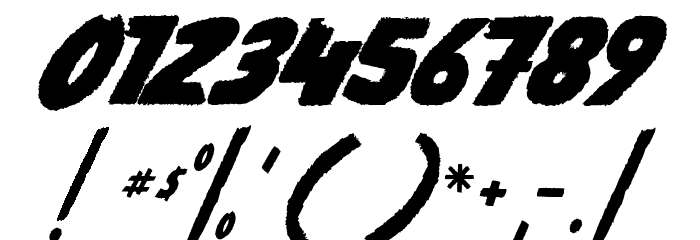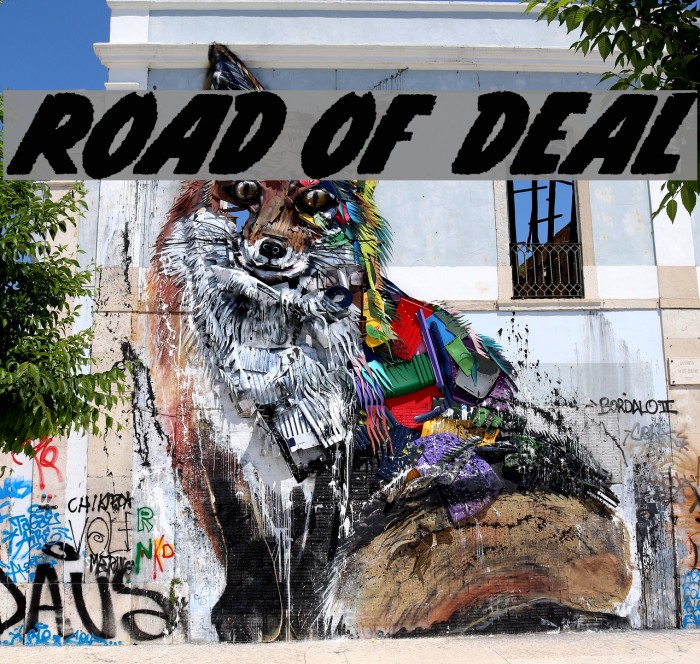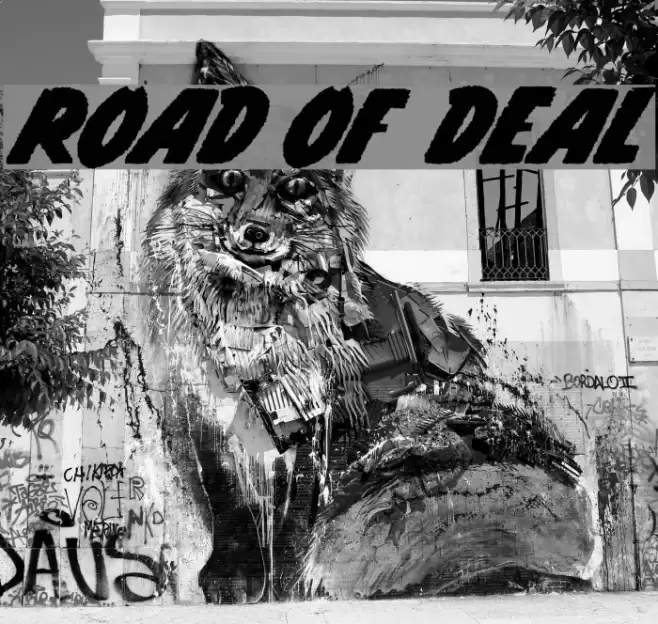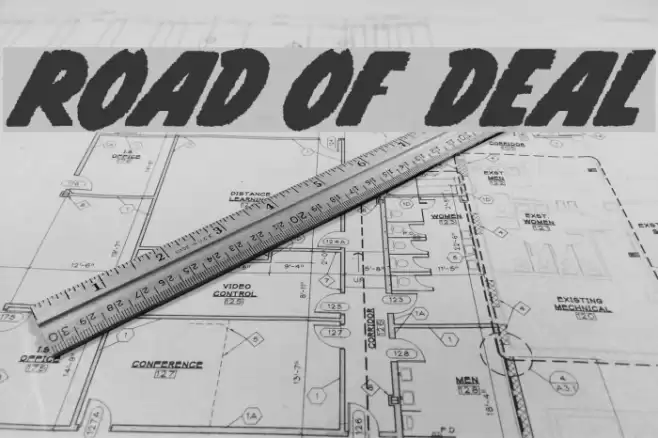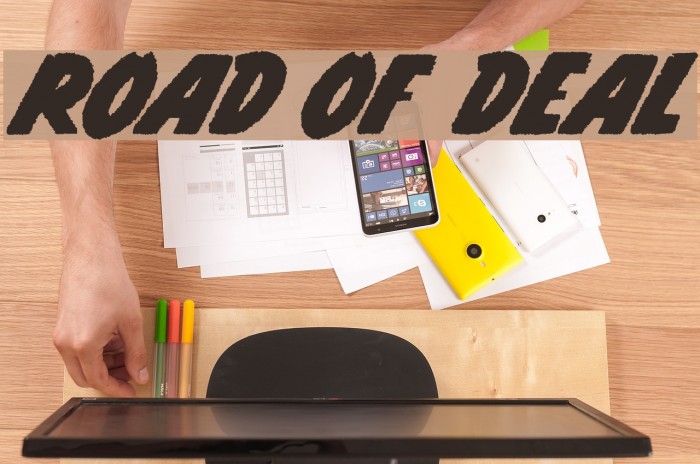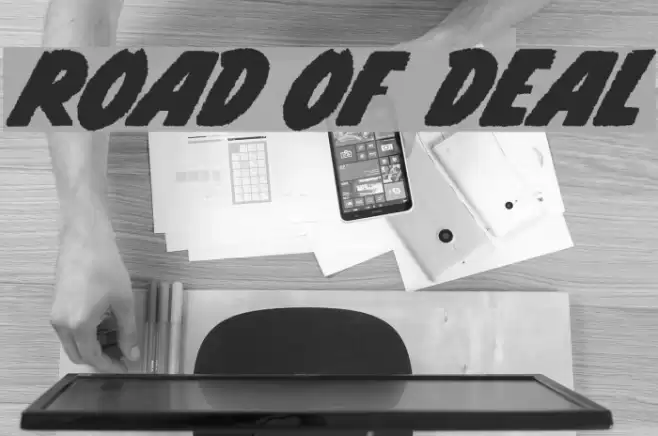
ROAD OF DEAL Font
ROAD OF DEAL Description
This font features a bold and dynamic style with a strong presence. The characters are thick and slightly slanted, giving a sense of movement and energy. The uppercase letters are robust and impactful, while the lowercase letters maintain the same boldness with a slightly more compact form. The numbers are equally bold, ensuring consistency across all characters. Special characters are designed with the same bold strokes, maintaining the overall aesthetic. This font is ideal for projects that require a strong, eye-catching typeface.
A bold, dynamic font with thick, slanted characters from Uncategorized fonts.
• Proposed Projects: Ideal for posters, headlines, logos, and branding materials that require a strong visual impact.
• Bold: Yes
• Italic: No
• Weight: Bold
• Width: Normal
• Character Spacing: Normal
• Contrast: Low
• Overall Style: Modern
• Use Case: Headlines, Logos